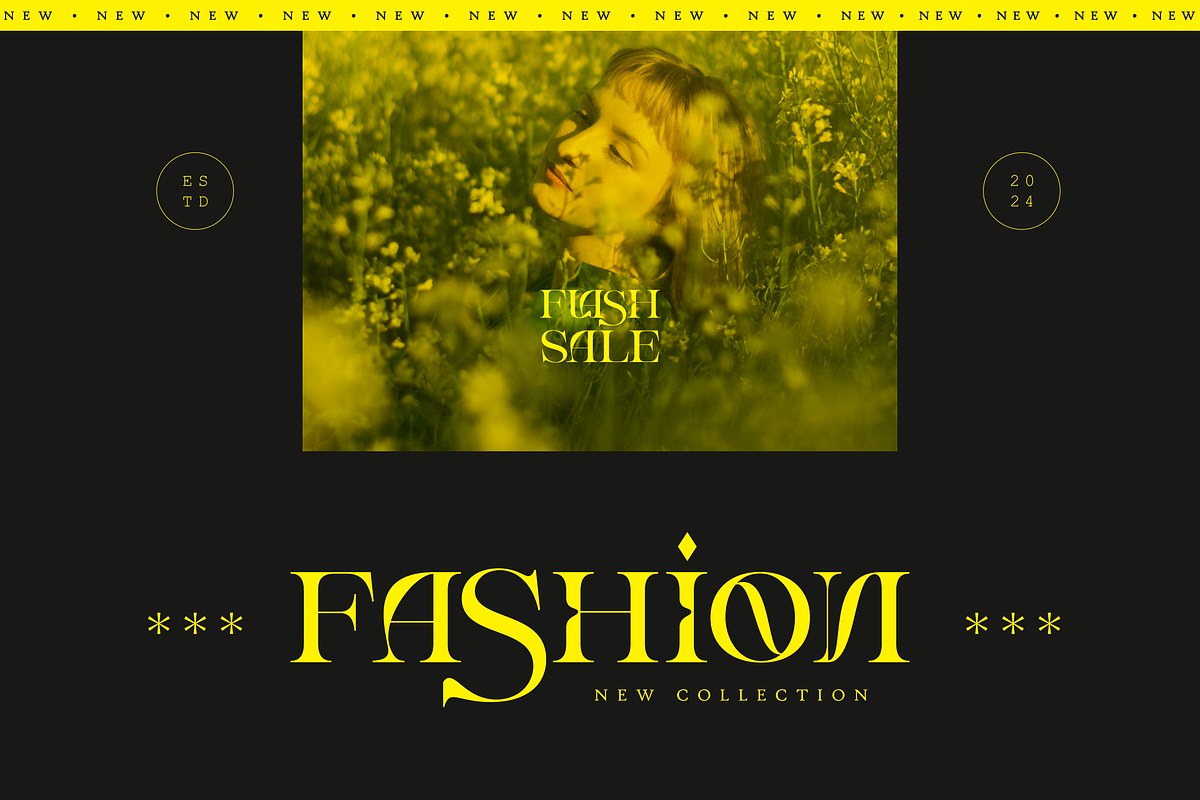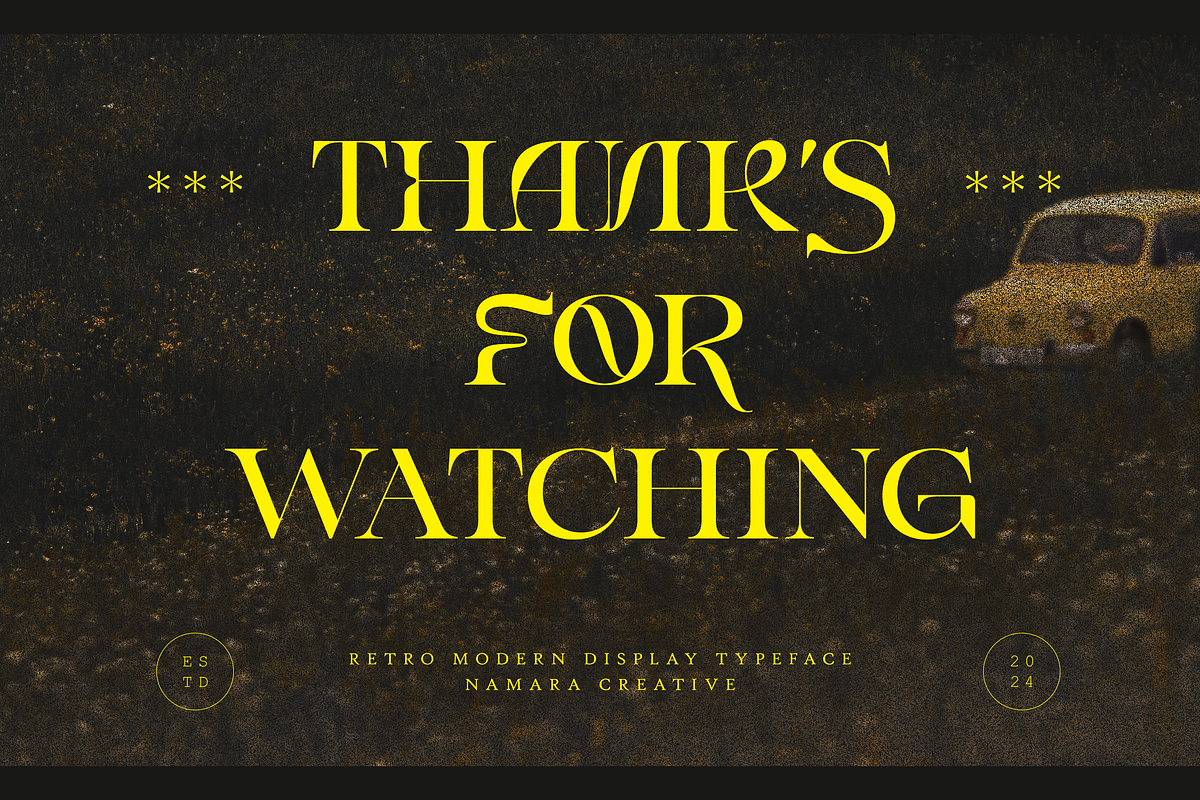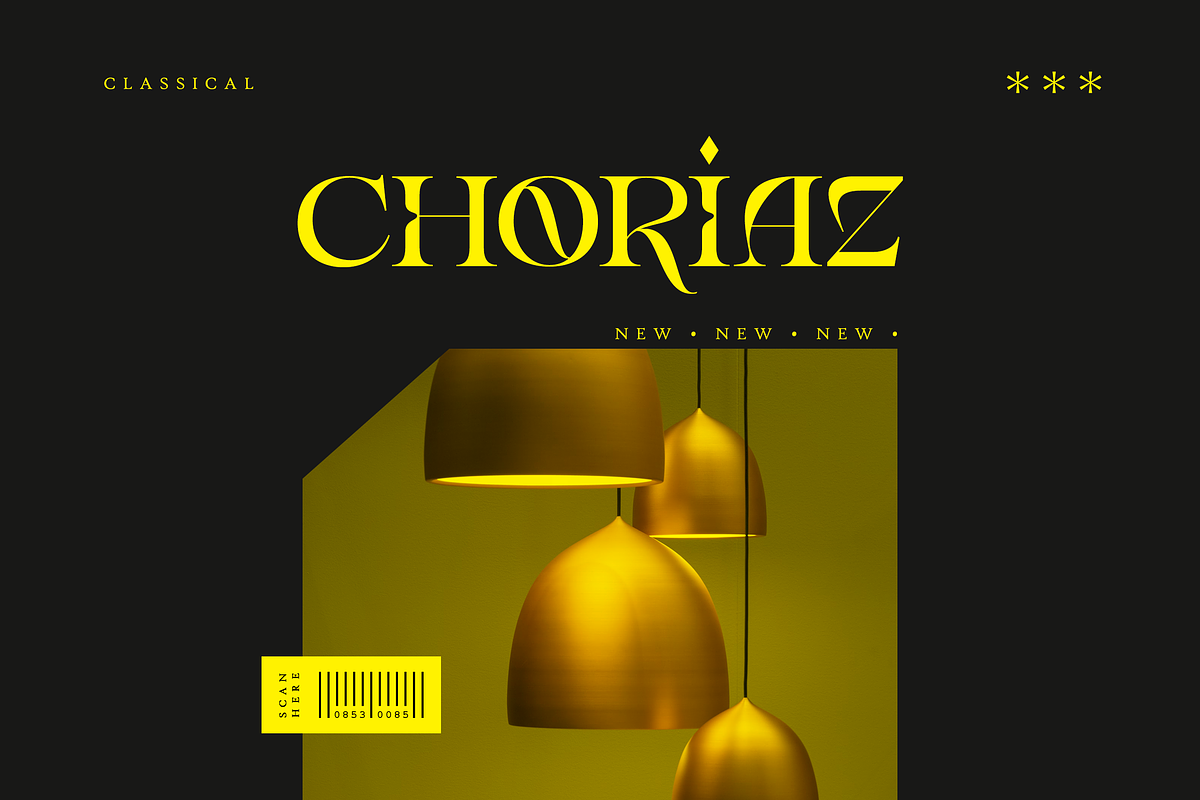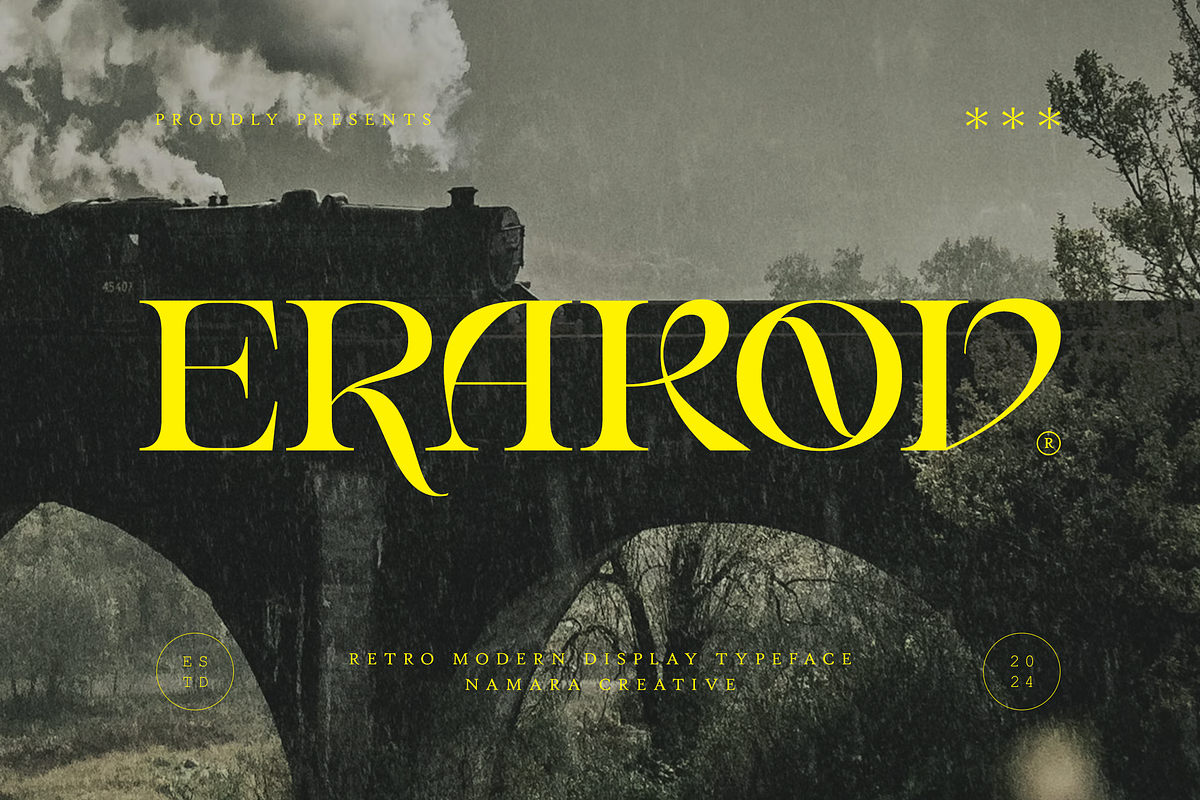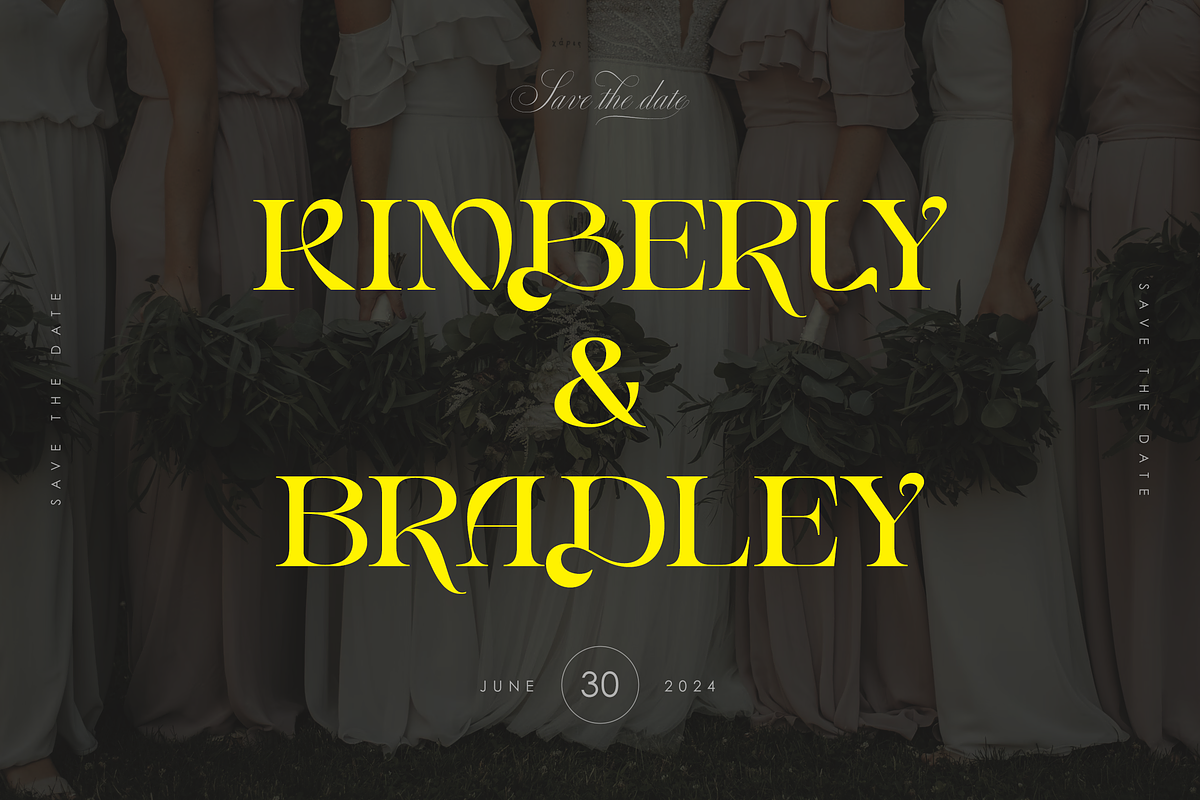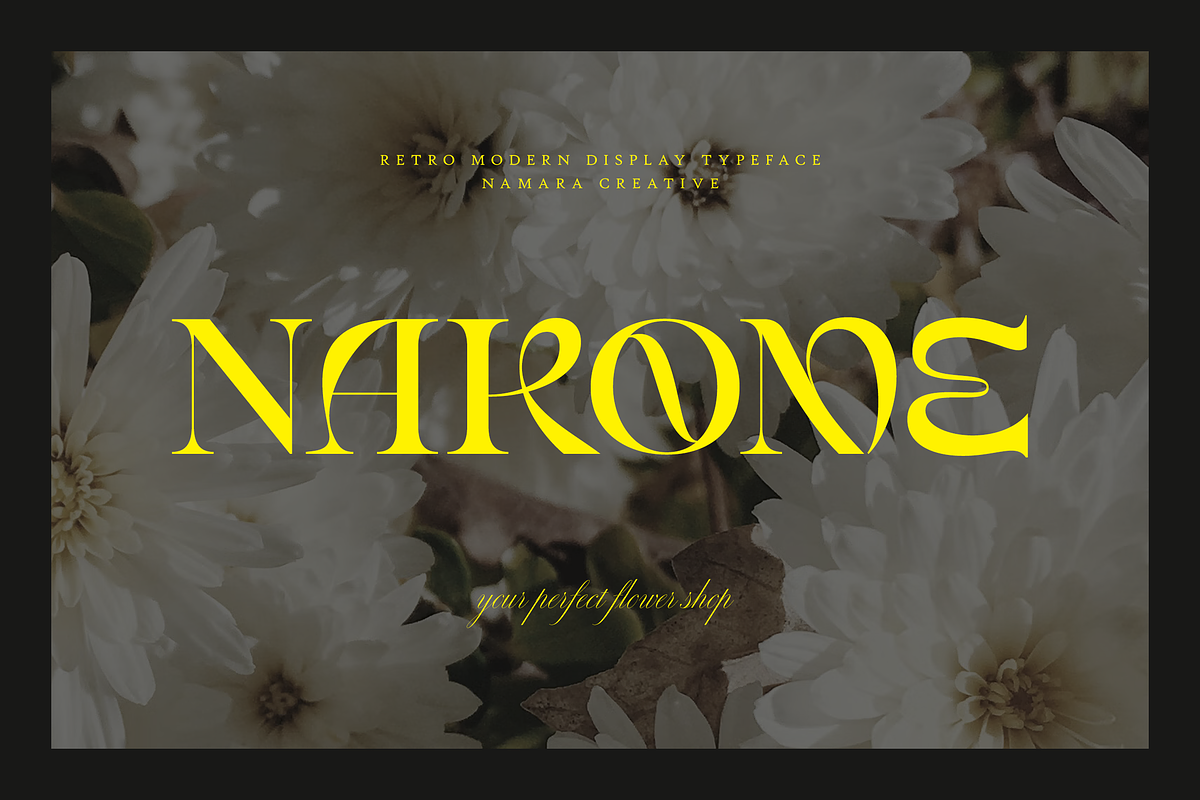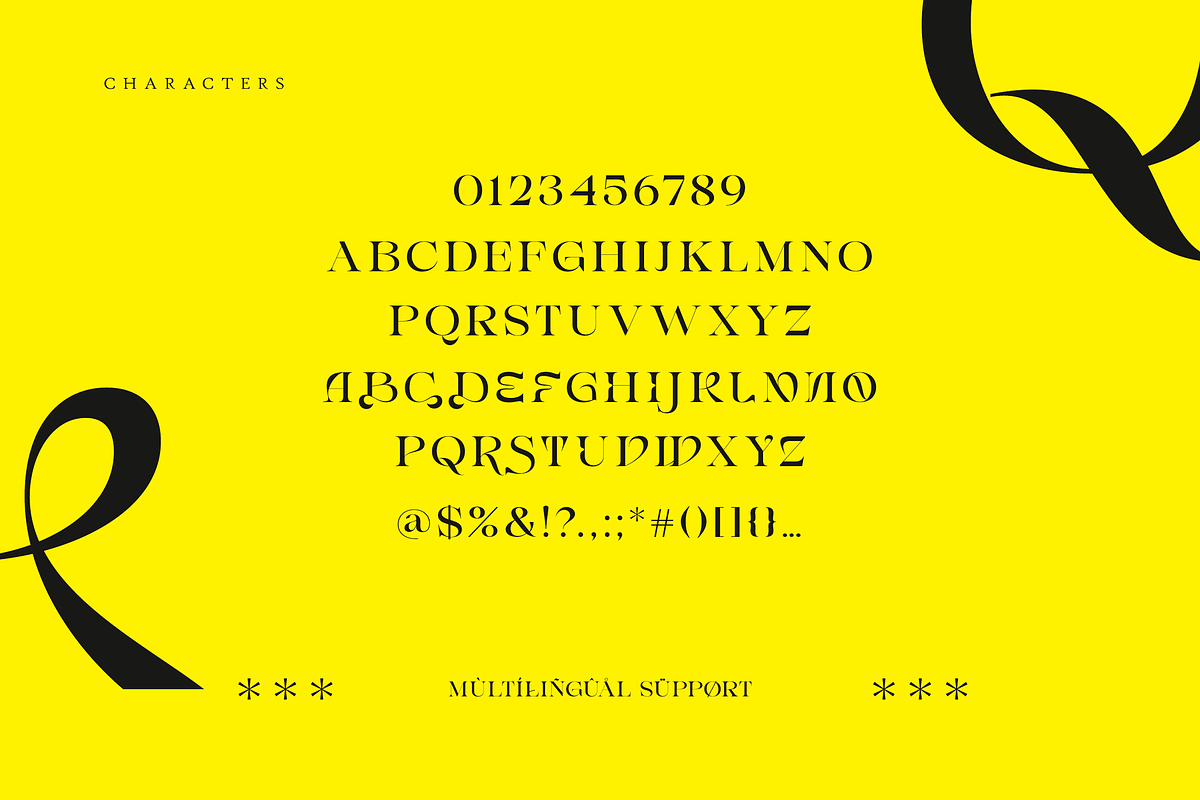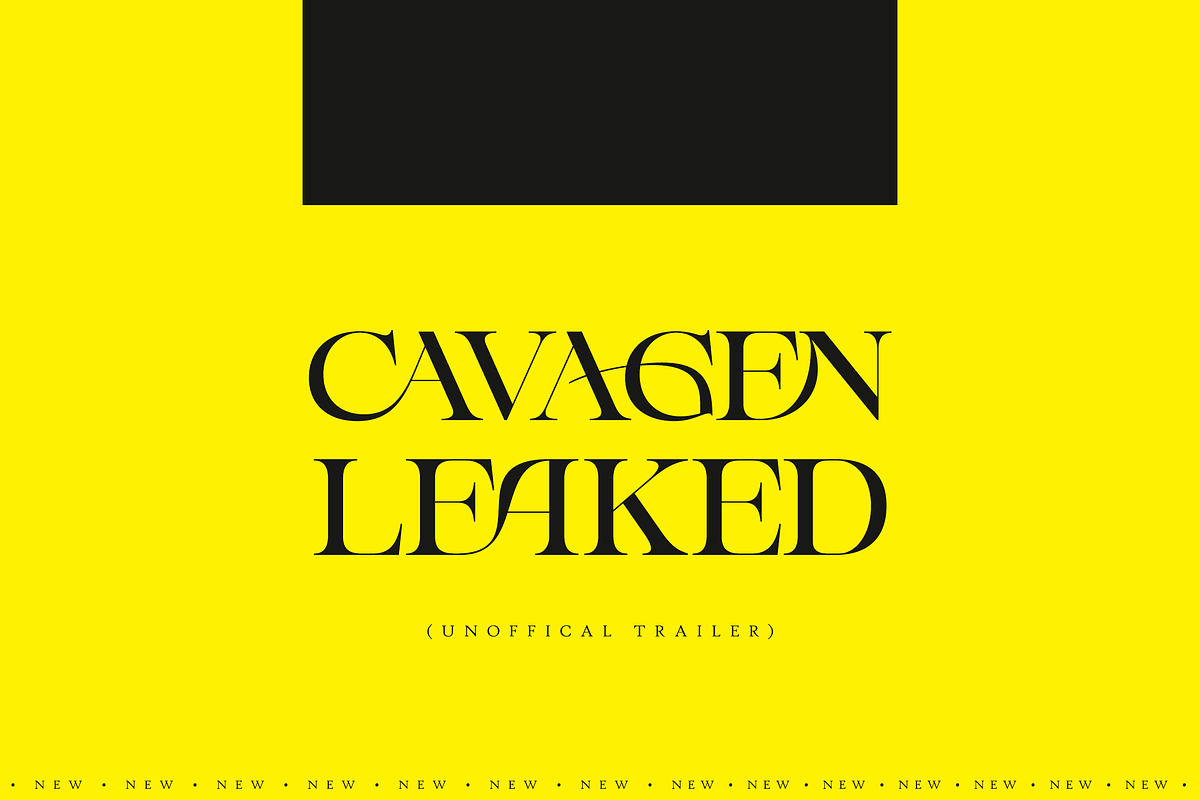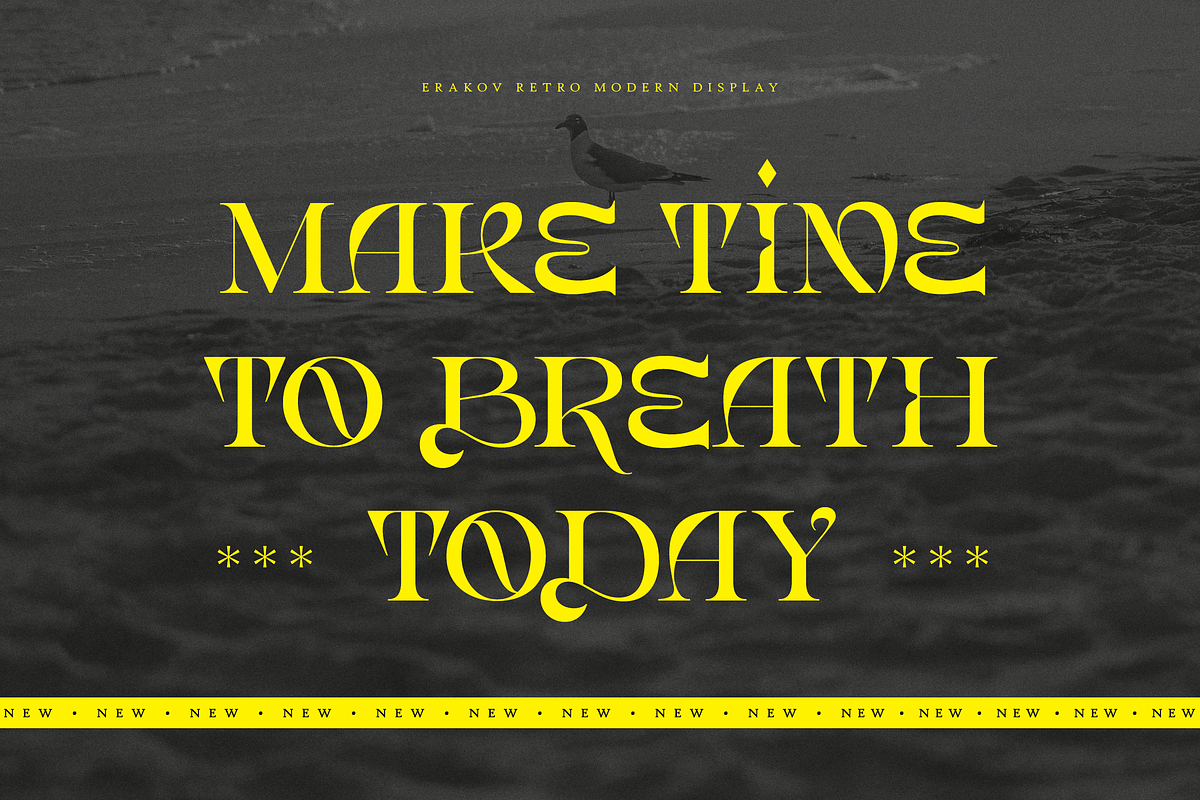
Erakov - Retro Modern Serif Display
Retro modern serif display font, Embrace a typeface that encapsulates the essence of retro charm and modern minimalism. Whether you’re looking to evoke nostalgia or convey contemporary elegance, this font is your go-to solution for achieving that perfect balance.
Make your designs unforgettable with the retro modern serif display font, where classic meets modern in the most stylish way.
- All Caps Display Characters